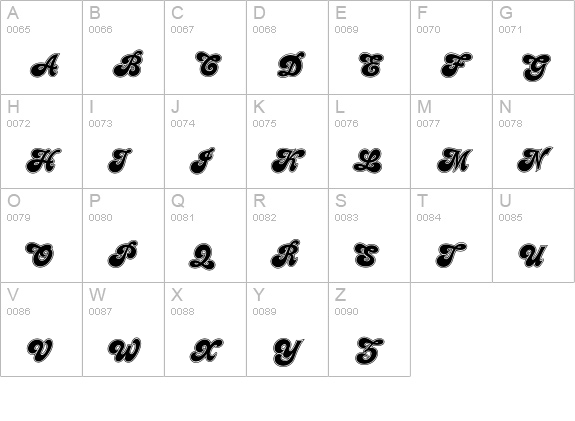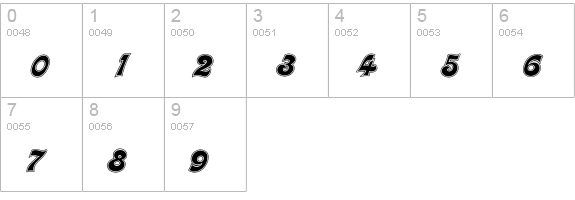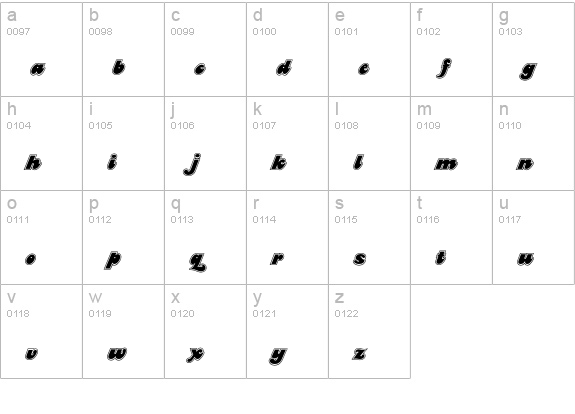
BenguiatCharisma-Contour Font Details
BenguiatCharisma-Contour font is a stunning and elegant display typeface that exudes charm and sophistication. Its unique contours and intricate details make it a perfect choice for adding a touch of glamour to any design project. The font's flowing lines and graceful curves give it a sense of movement and energy, making it a standout choice for headlines, logos, and branding materials. Best of all, BenguiatCharisma-Contour font is available for free download at FontsMarket.com. Whether you're working on a personal project or a professional design, this font is sure to elevate your work and leave a lasting impression. Don't miss out on the opportunity to add this beautiful typeface to your collection and take your designs to the next level.